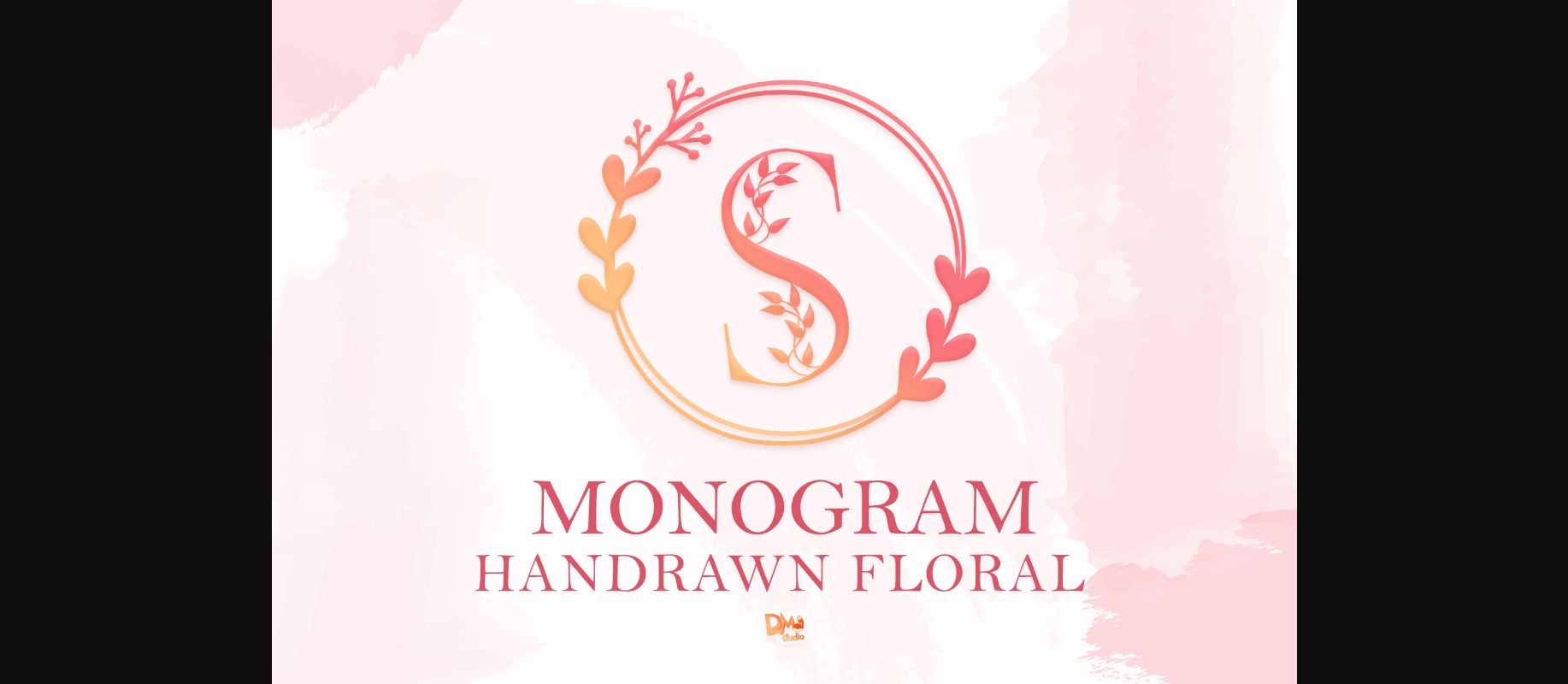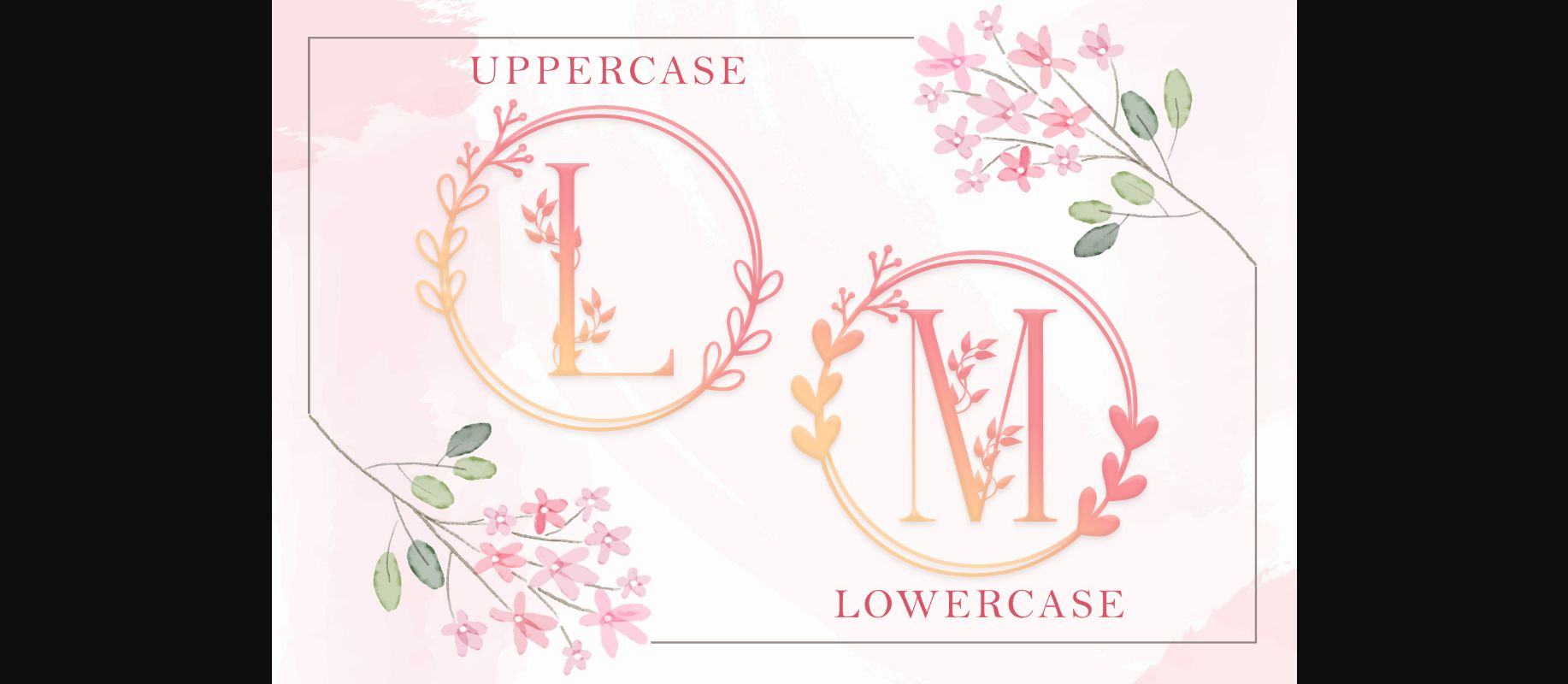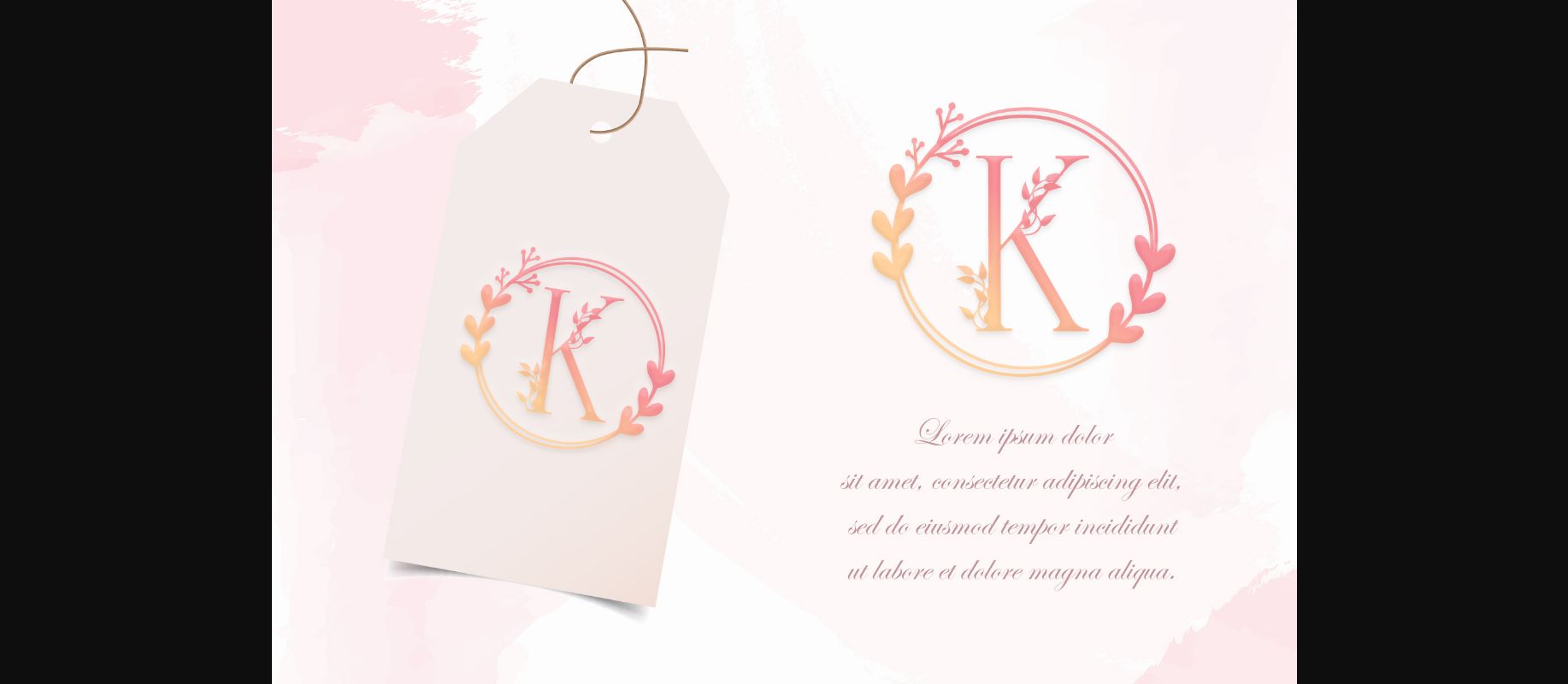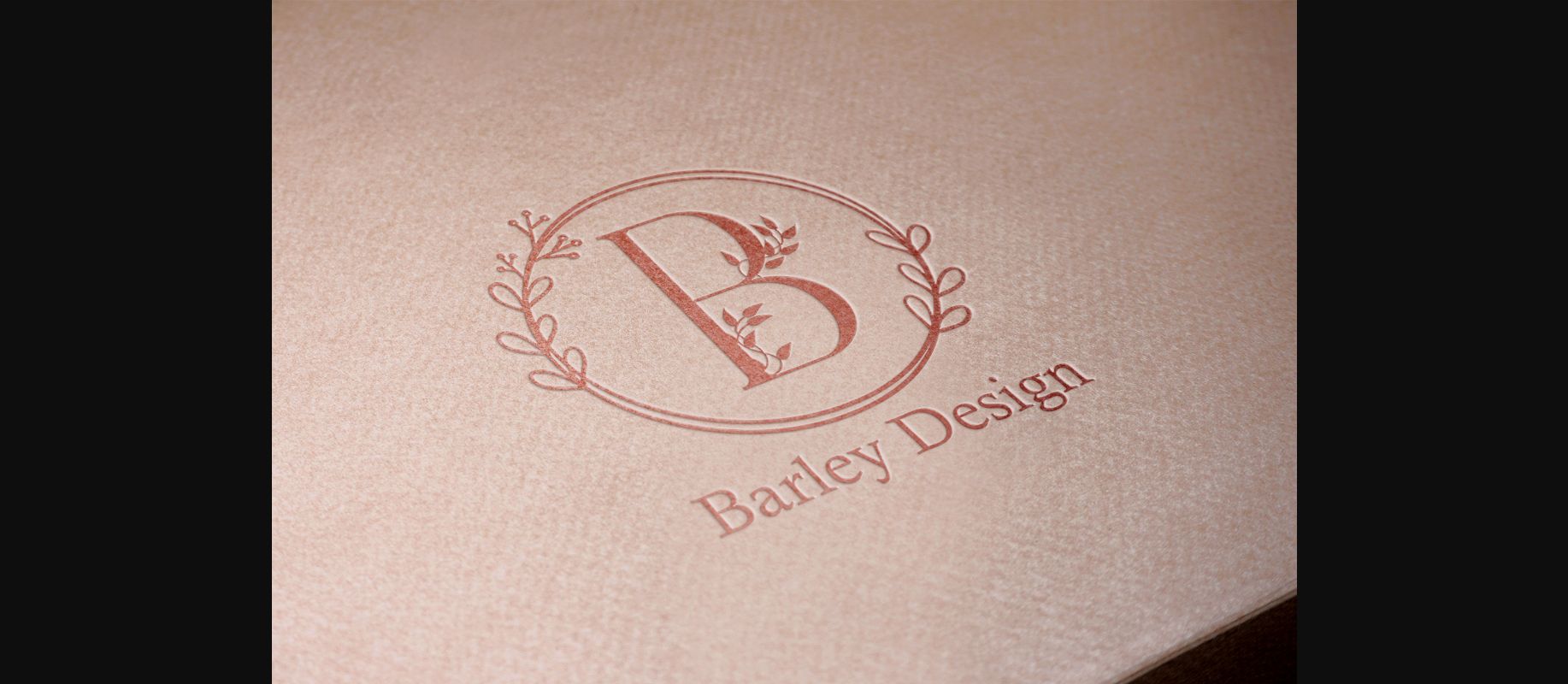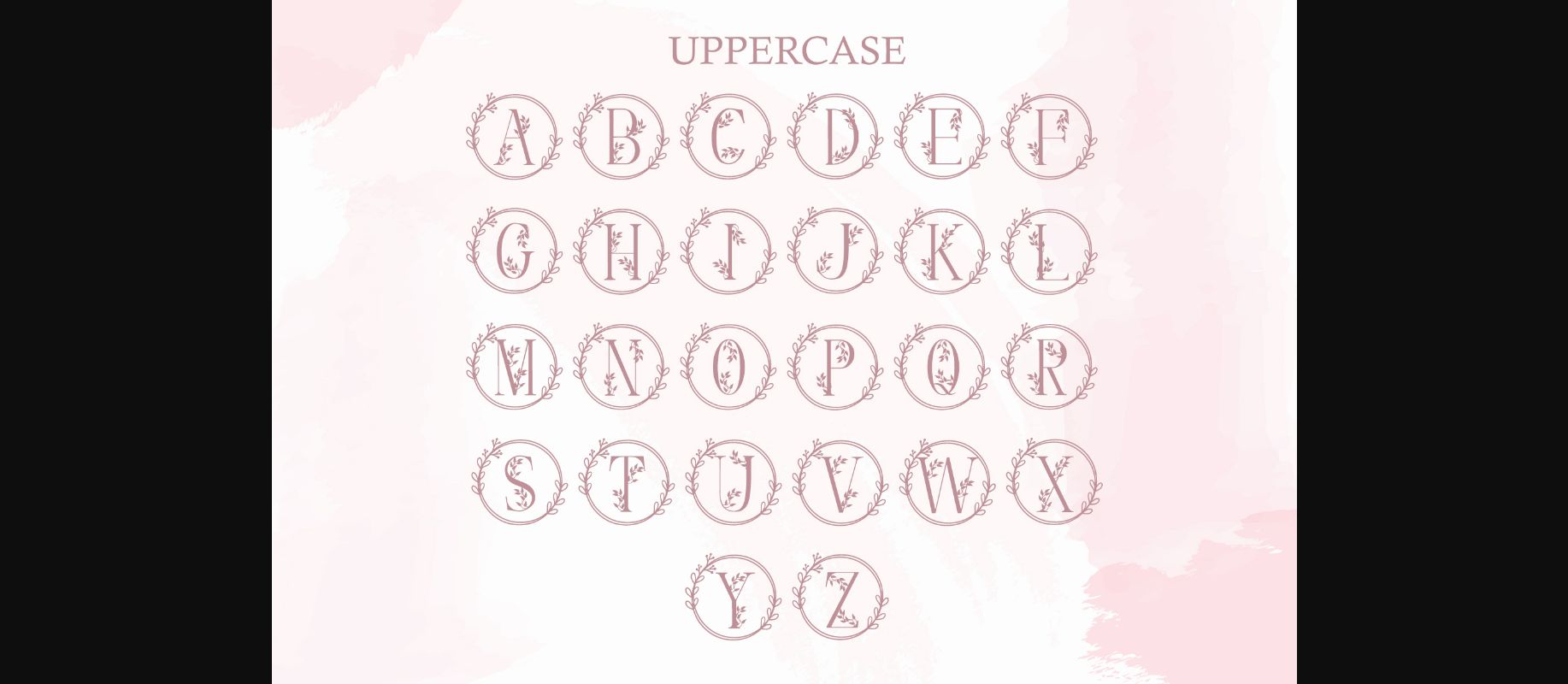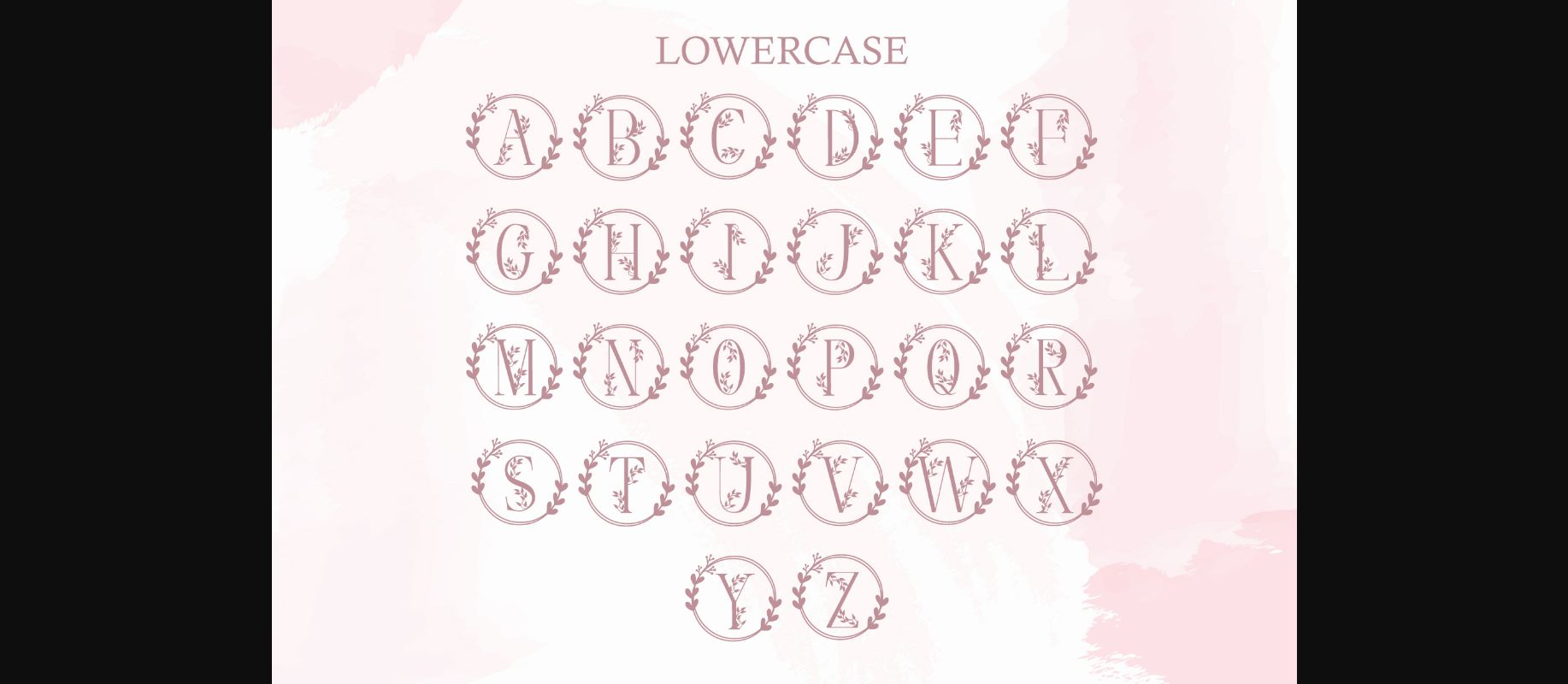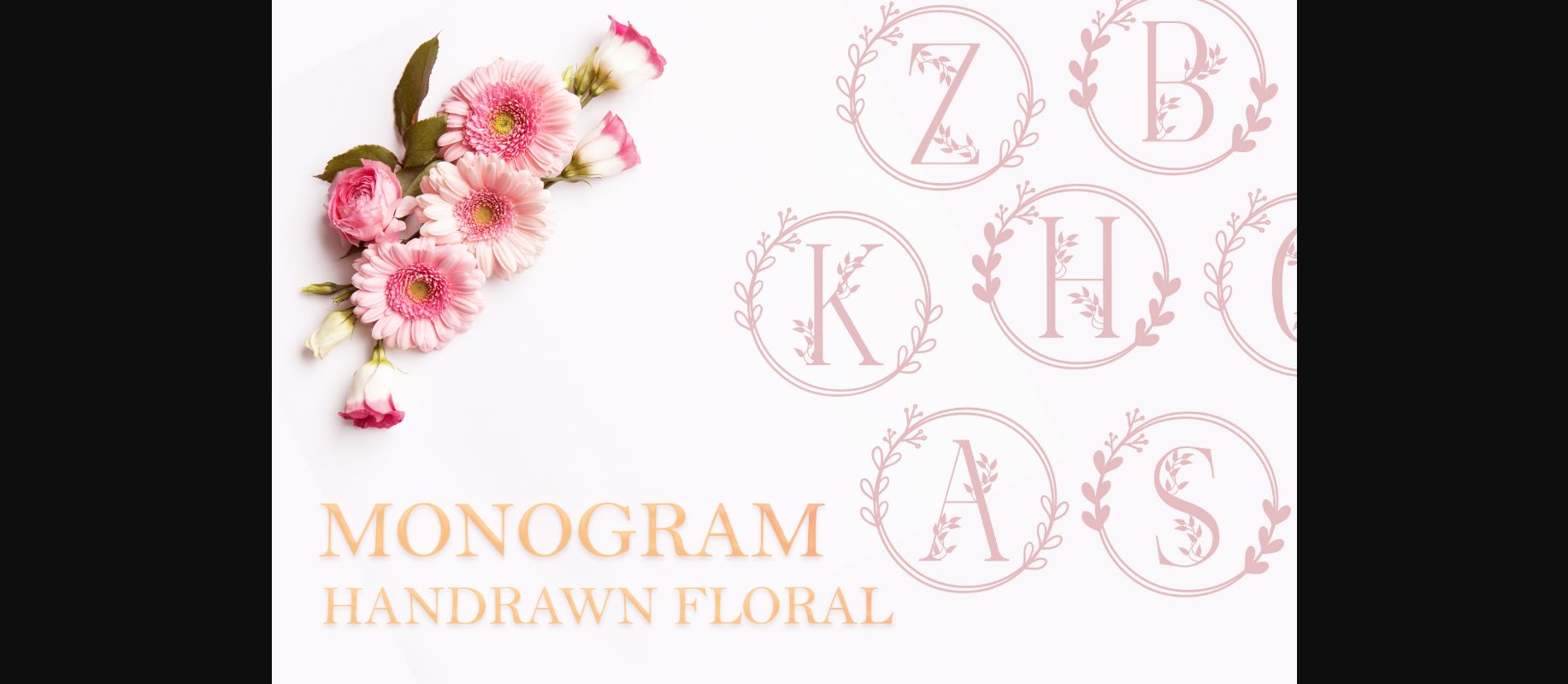
Monogram Handrawn Floral Font
About Monogram Handrawn Floral Font
Monogram Handrawn Floral is an elegant decorative font, featuring lovely leaf ornaments. Fall in love with its authentic feel and use it to create gorgeous wedding invitations, beautiful stationary art, eye-catching social media posts, and cute greeting cards.